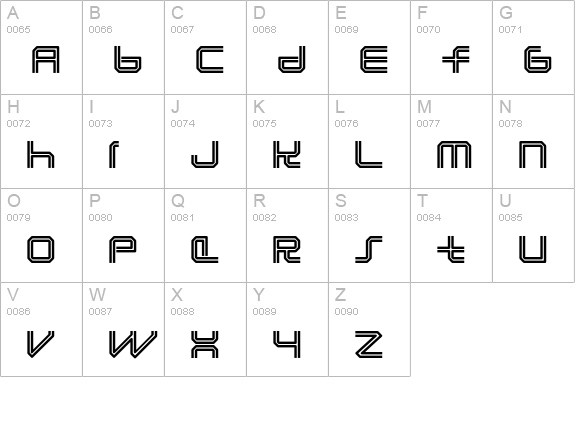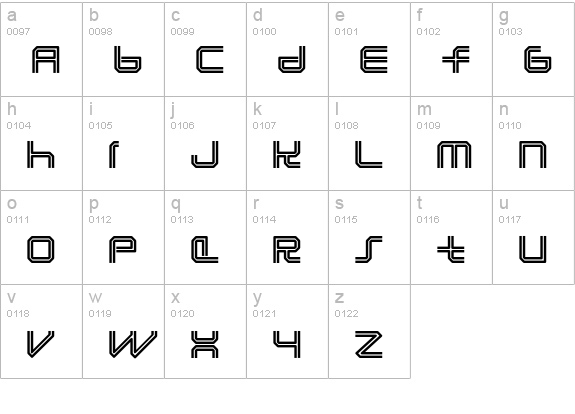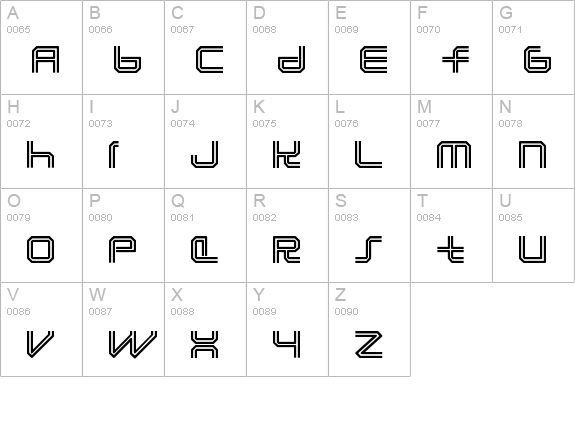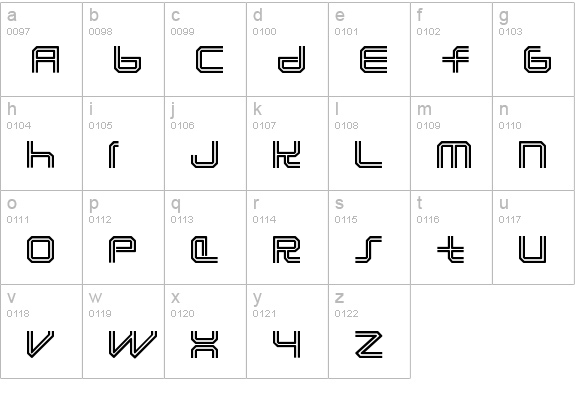
Lunasolution Font Details
Lunasolution font is a versatile and elegant typeface that exudes a sense of modern sophistication. With its sleek lines and stylish curves, this font is perfect for adding a touch of class to any design project. Whether you're working on a branding campaign, website design, or print materials, Lunasolution font will elevate your work to the next level. The best part? Lunasolution font is completely free to download at FontsMarket.com. That's right, you can access this stunning font without having to break the bank. So why wait? Add a touch of sophistication to your designs with Lunasolution font today.